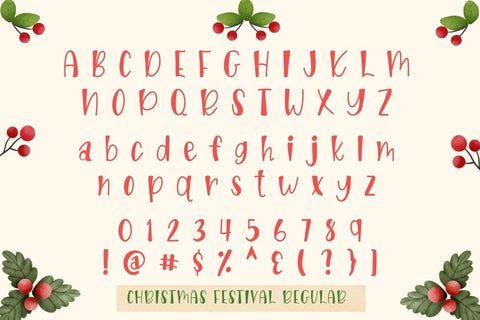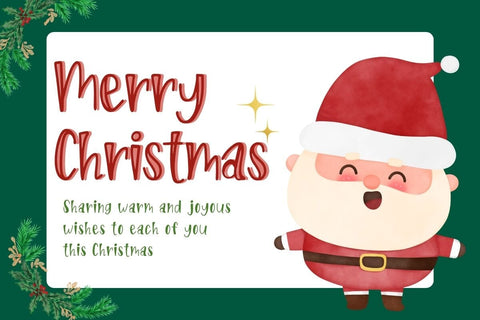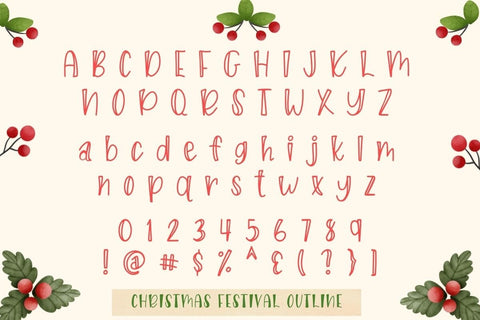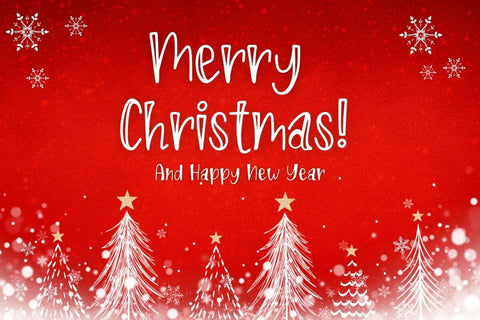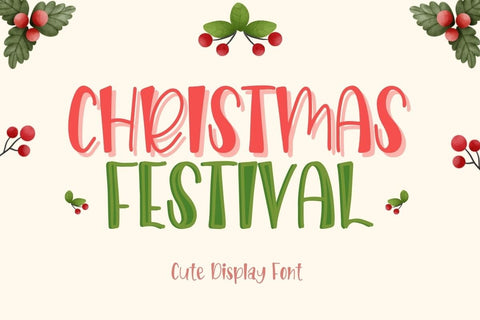
Christmas Festival Font
Christmas Festival is a quirky and festive display font duo. Its unique style is perfect for all your projects that require a whimsical, cozy touch.